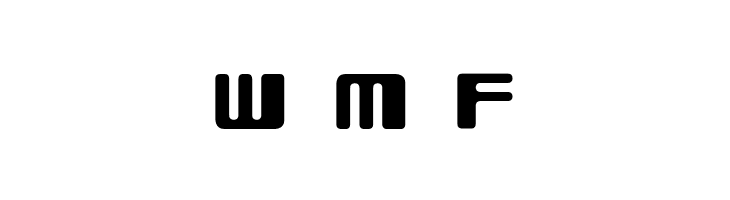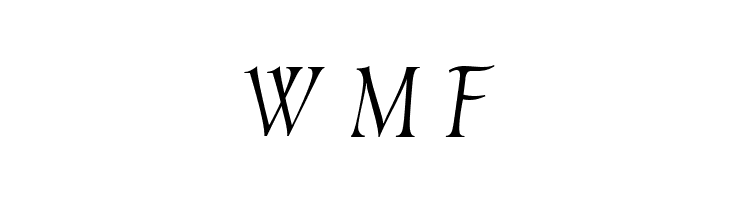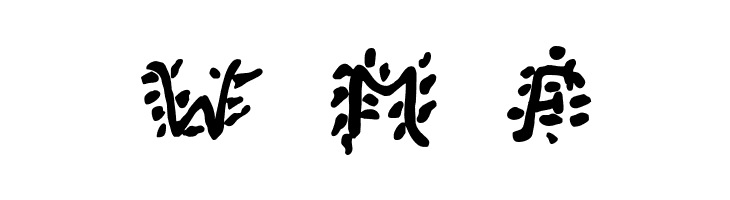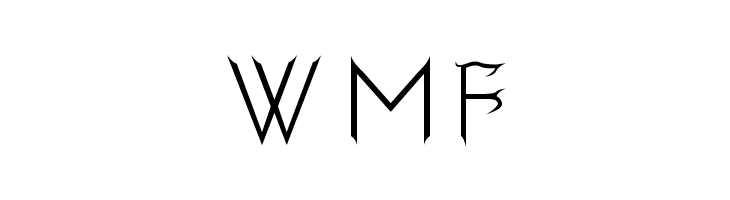
A bold, modern sans-serif font with clean lines and uniform stroke width.
A bold, playful, and casual handwritten font with rounded edges.
A bold, slanted font with a casual and dynamic style.
A bold, impactful font with thick strokes and a strong presence.
A bold, italicized font with high contrast and a modern, dynamic style.
A bold, modern font with thick strokes and playful special characters.
A bold, modern font with wide, uppercase characters.
A bold, blackletter-style font with sharp, angular lines and intricate detailing.
A bold, gothic blackletter font with sharp, angular lines and ornate details.
An expressive, fluid script font with elegant, sweeping strokes.
A decorative font with feather-like embellishments and a calligraphic style.
A whimsical, hand-drawn font with thin, elongated strokes and an artistic flair.
A bold, geometric font with a modern, pixelated style.
A sophisticated and elegant script font with fluid, flowing letterforms.
A sophisticated and elegant script font with flowing, cursive letterforms.
A bold, decorative font with stars and stripes, evoking American patriotic themes.
A bold, stencil-style font with geometric shapes and distinct cutouts.
A bold, cursive font with high contrast and dramatic flourishes.
A modern serif font with elegant curves and strong vertical emphasis.
A modern serif font with balanced proportions and distinct serifs.
A sophisticated serif font with a blend of classic and modern elements.
A modern, geometric sans-serif font with a clean and sleek design.
A sophisticated handwritten font with fluid, cursive strokes.
A modern serif font with bold, structured characters and elegant curves.
A whimsical handwritten font with playful loops and delicate strokes.
A bold, dynamic handwritten font with fluid strokes and playful curves.
A fluid, cursive script font with elegant, interconnected strokes.